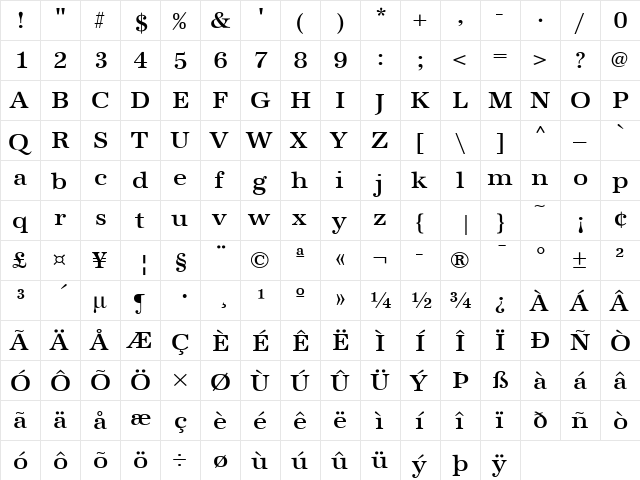
URW Antiqua T Regular
Design Context for URW Antiqua T Typeface
URW Antiqua T offers clean, dependable letterforms without strong stylistic allegiance, making it a practical choice for designers who need flexibility.
Pro Tip: Pair URW Antiqua T with a font of contrasting weight or personality to build a more expressive typographic hierarchy.